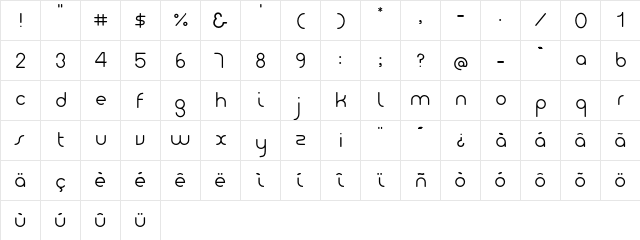
Giro Light
| Foundry | Marcelo Magalh˥s Pereira |
| Designer | Marcelo Magalh˥s |
Design Context for Giro Typeface
Giro offers clean, dependable letterforms without strong stylistic allegiance, making it a practical choice for designers who need flexibility. The delicate stroke weight brings airiness and refinement to layouts.